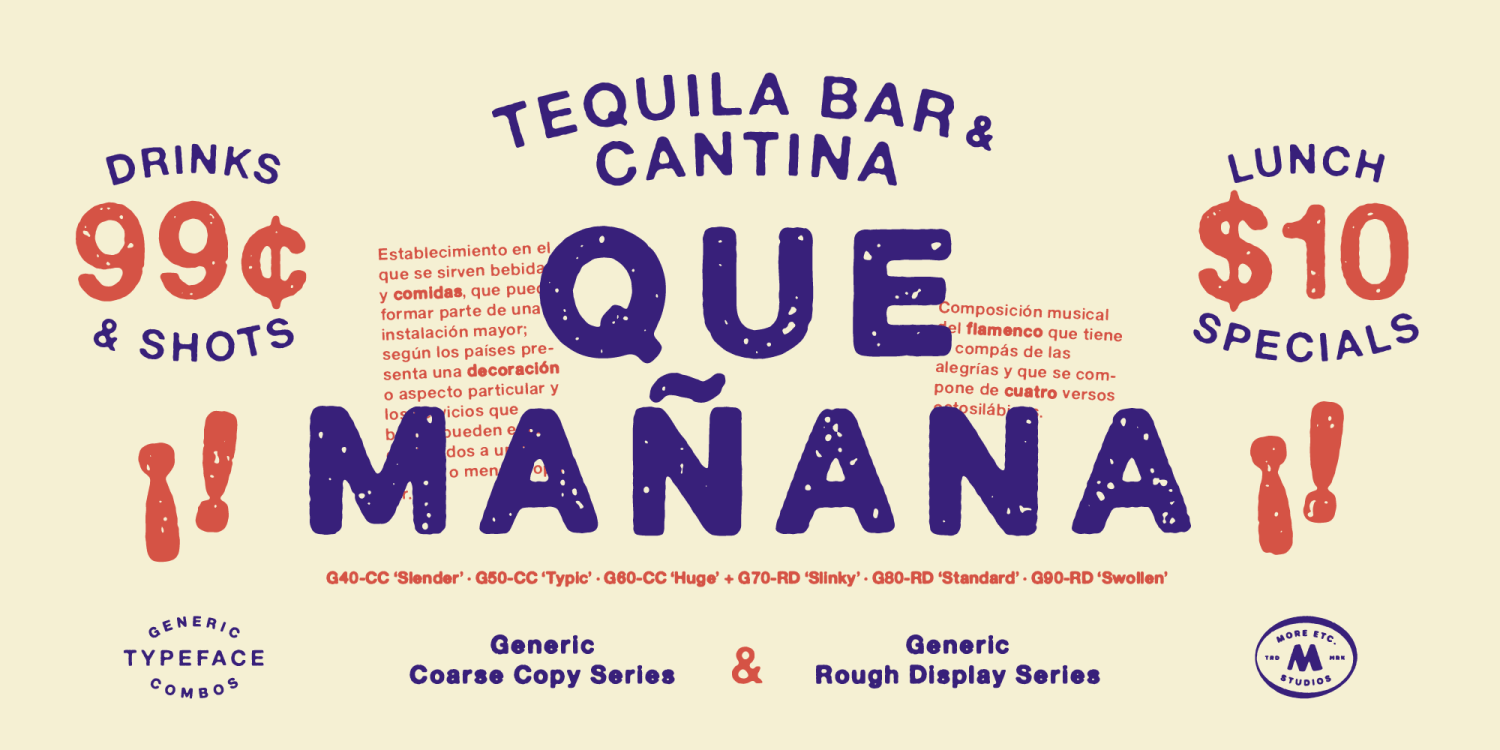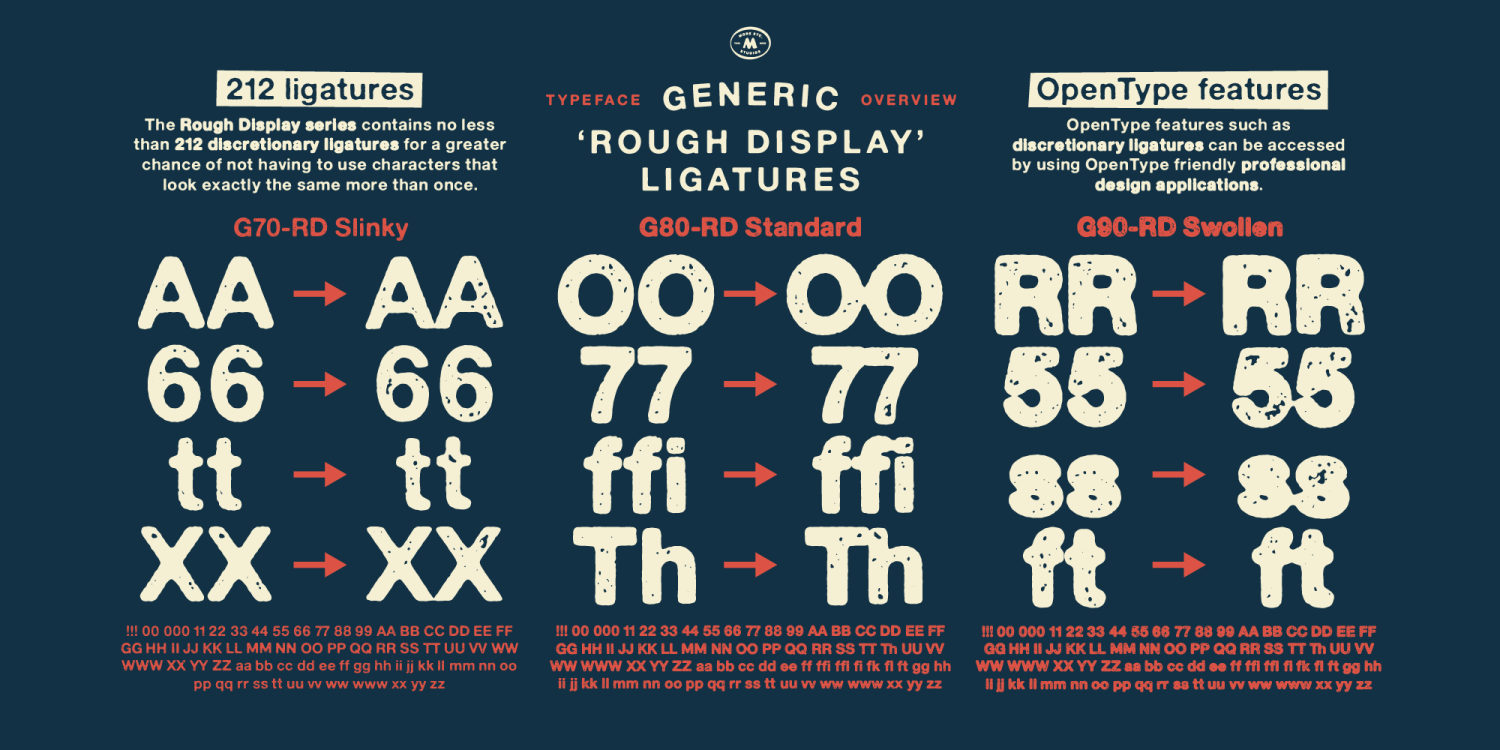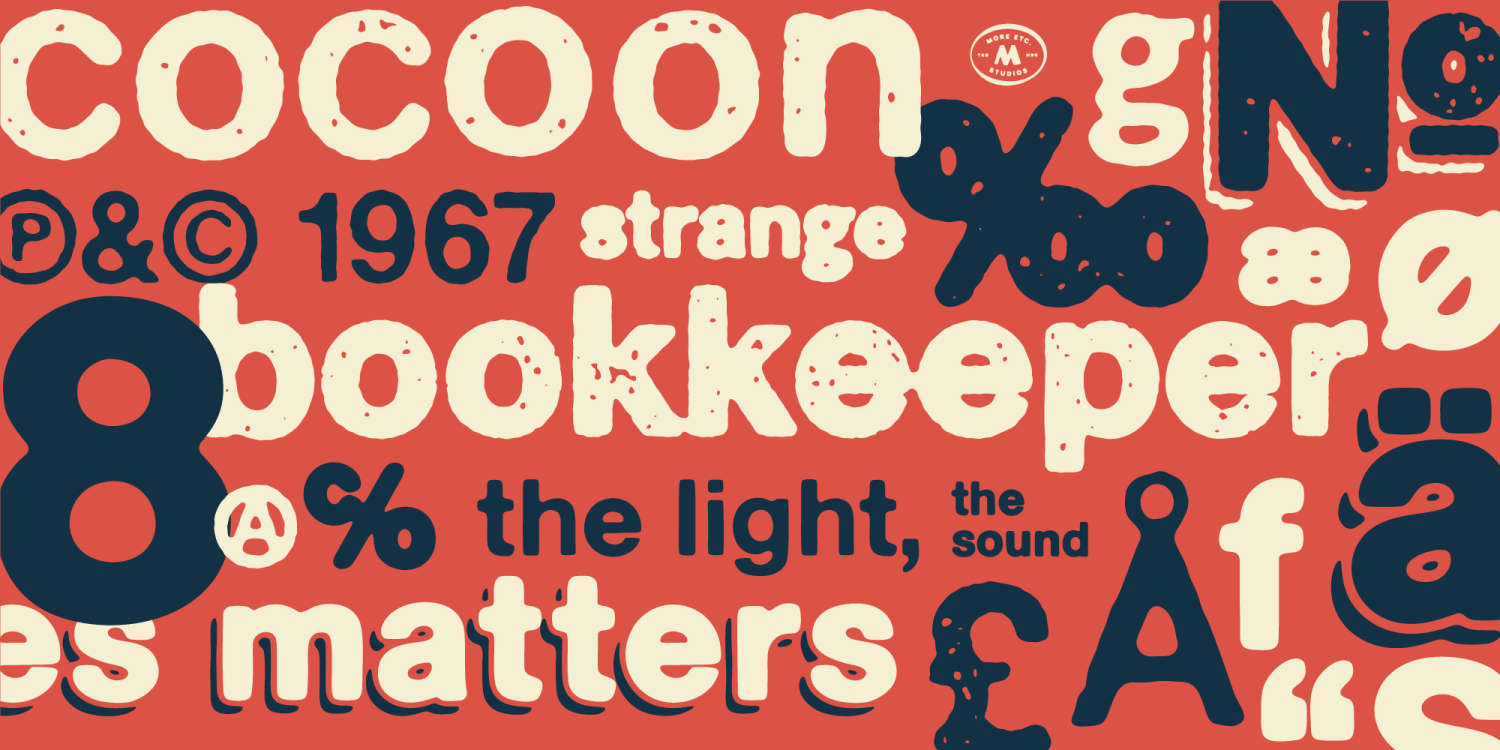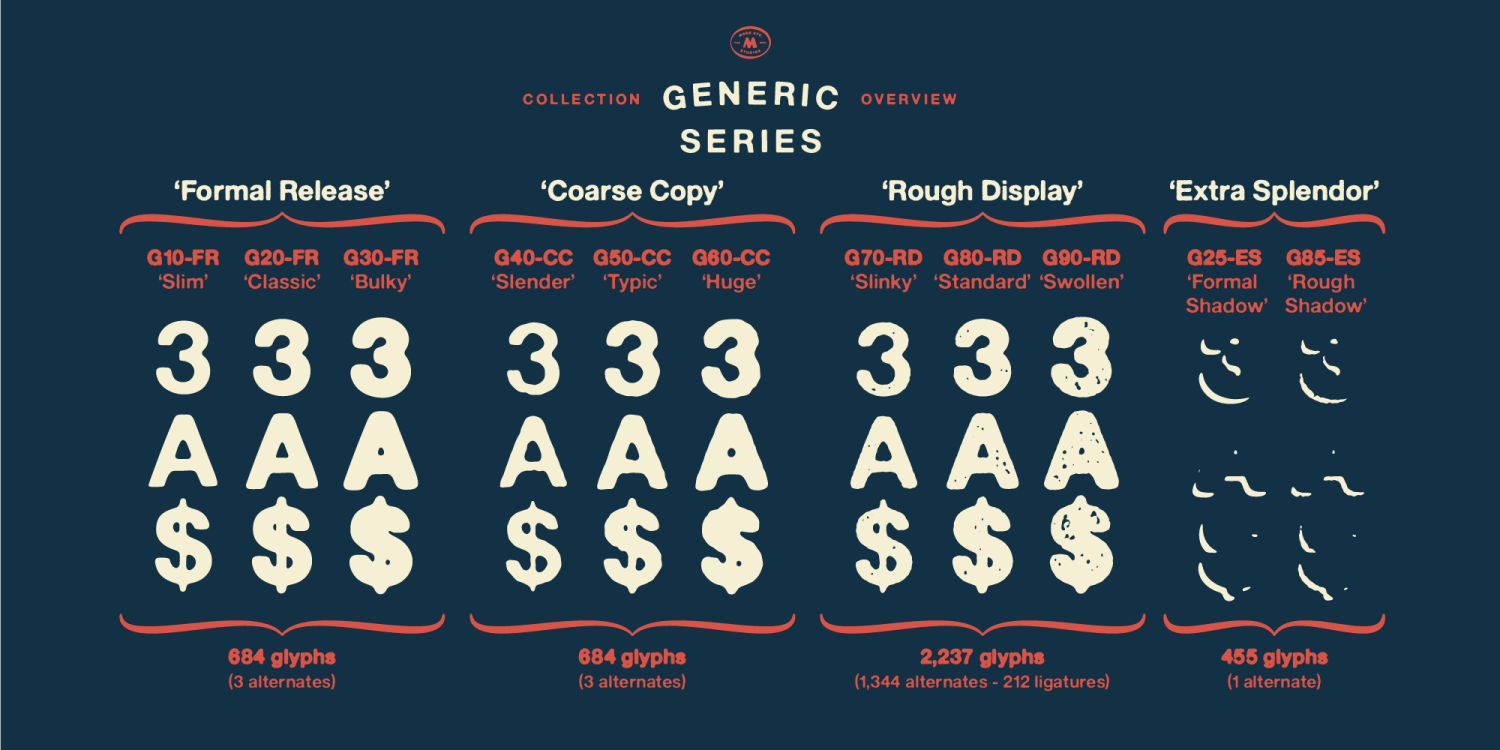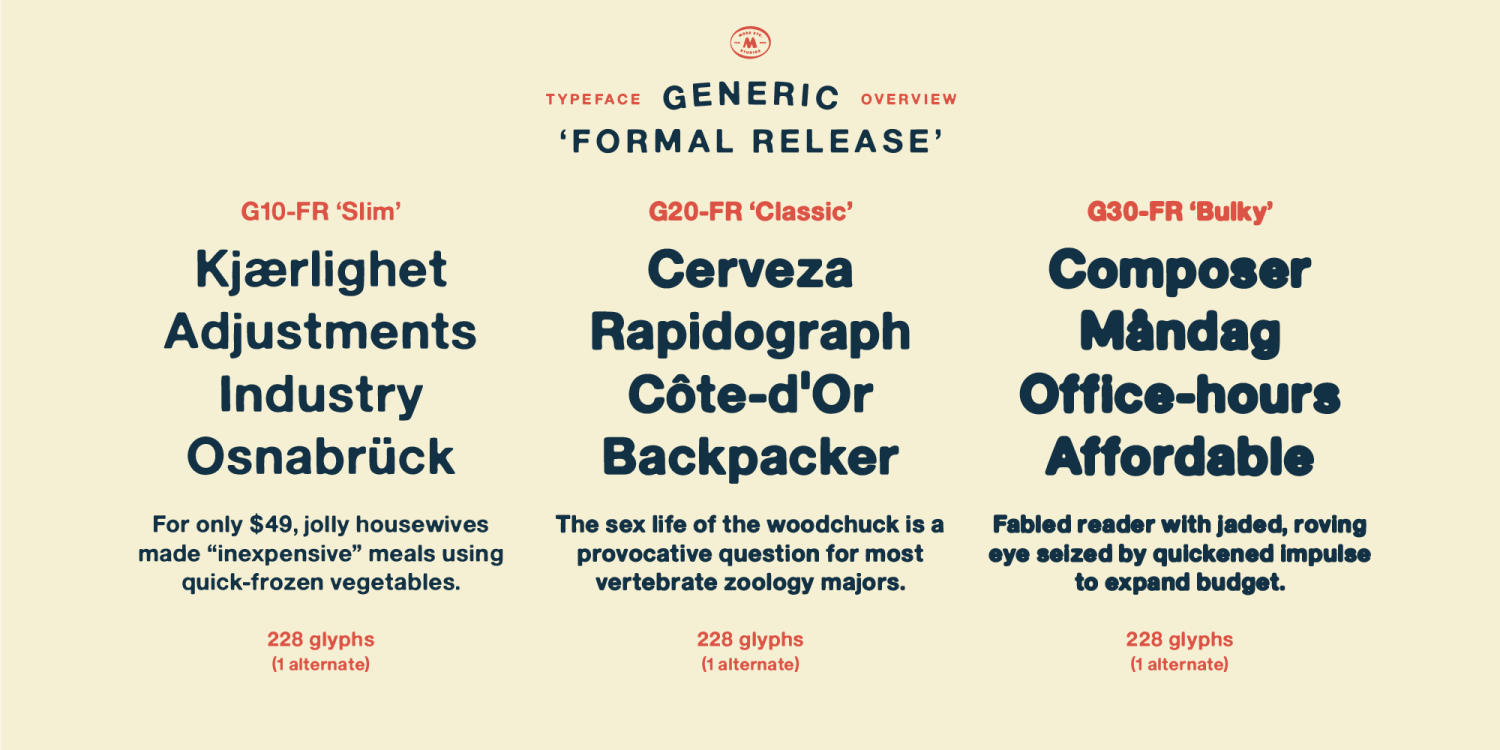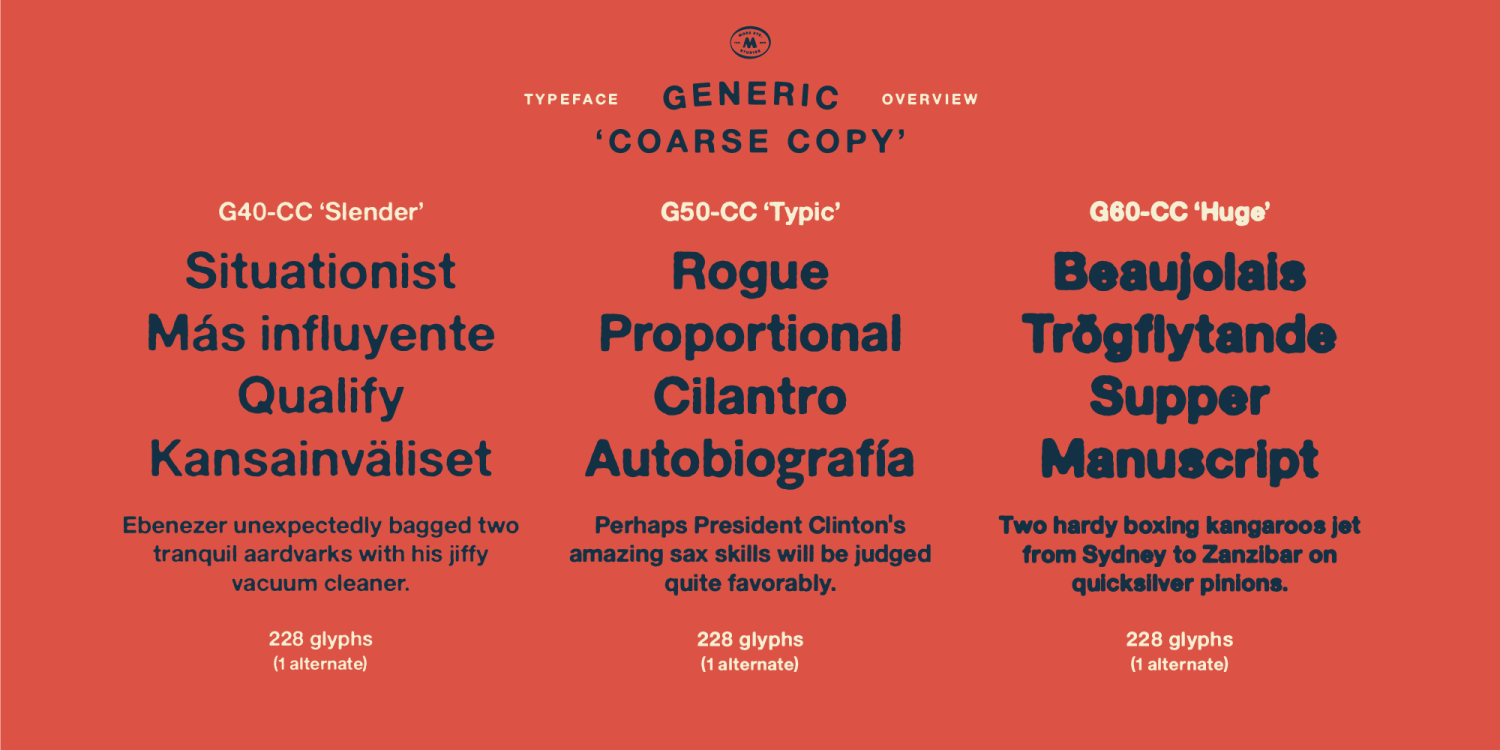
About Generic
The Generic Typeface Collection is a series of sans-serif typefaces inspired by the craftsmanship of graphic design, typesetting, and printing in the analogue era – before Adobe, Macintosh computers and desktop publishing…